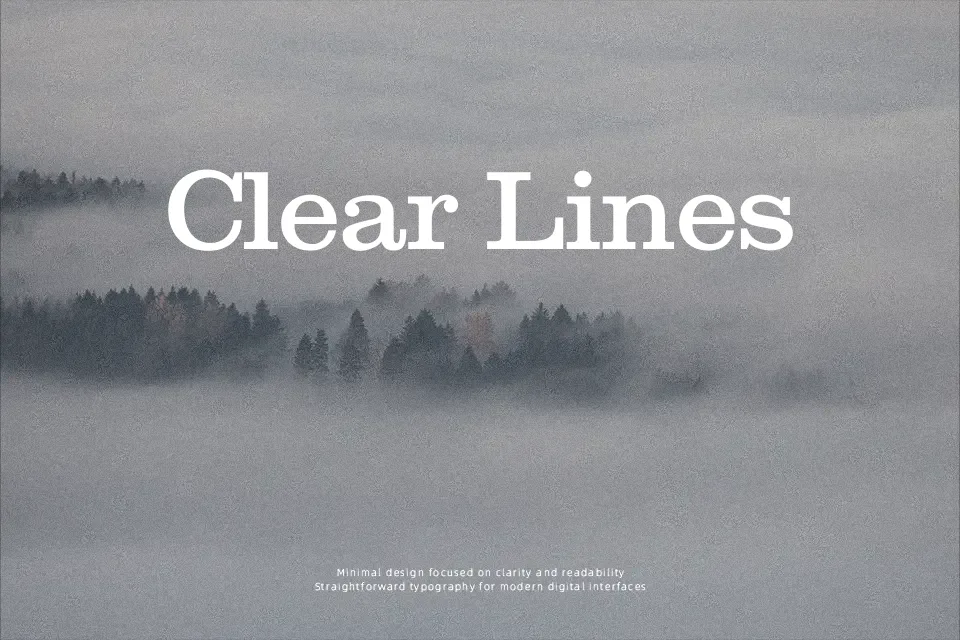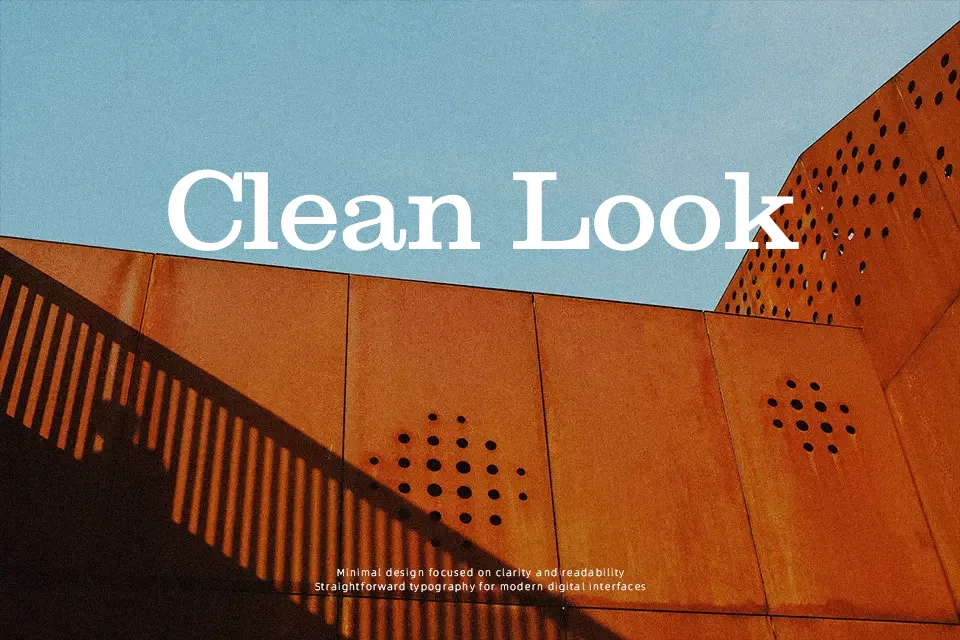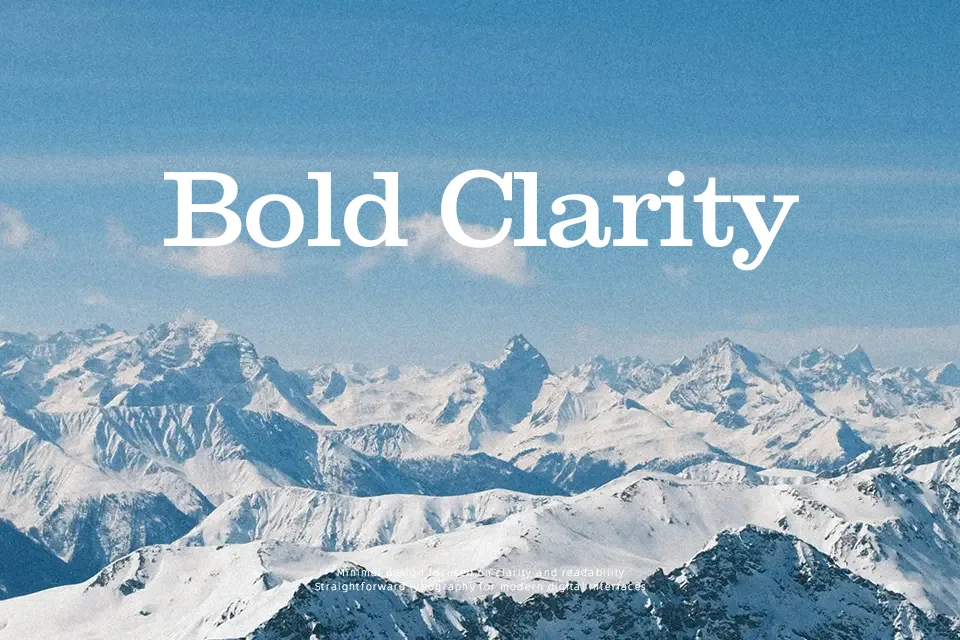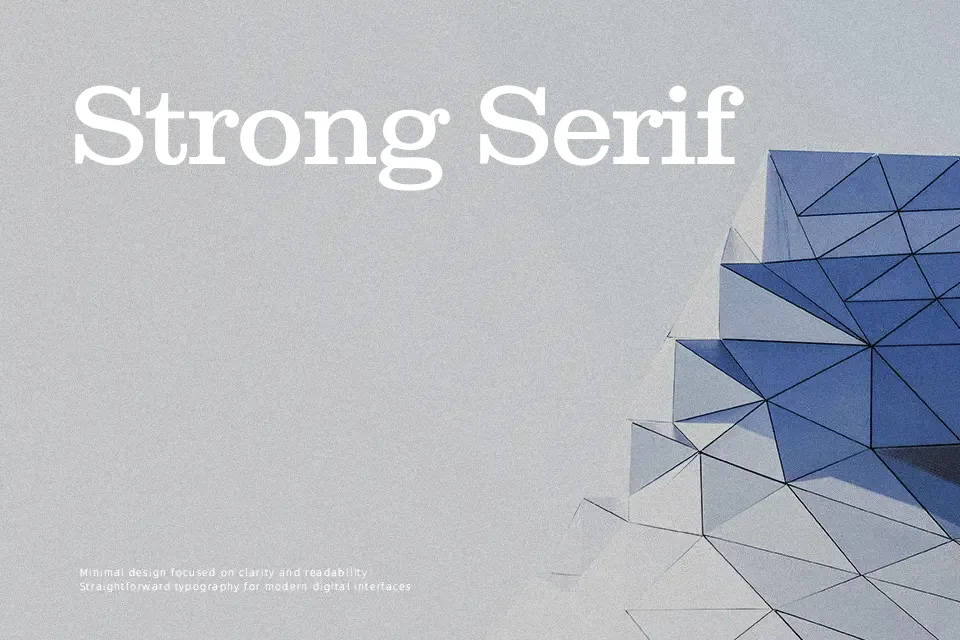
Clarendon Font
Designed by unknown
Clarendon Font immediately establishes a tone of historical permanence and undeniable sturdiness. This iconic slab serif is defined by its thick, heavy bracketed serifs, strong vertical stems, and distinct, teardrop-shaped terminals on characters like the ‘a’ and ‘r’. Its uniform stroke weight and wide proportions provide a solid, almost architectural presence that is incredibly difficult to ignore.
This structural integrity makes the typeface highly effective for bold, vintage-inspired applications, such as classic western posters, authoritative editorial headers, and commanding signage. However, its significant visual weight and wide stance mean it performs poorly in small, dense body text; the heavy letterforms quickly reduce readability and cause the page to feel cramped. It stands as the definitive benchmark for classic slab serif design.
– classic western posters
– vintage product branding
– authoritative editorial headers
– striking restaurant signage
– lengthy book paragraphs
– tiny mobile interfaces
– minimalist tech layouts
Perfect for branding, editorial, and headline, with a bold and display style.